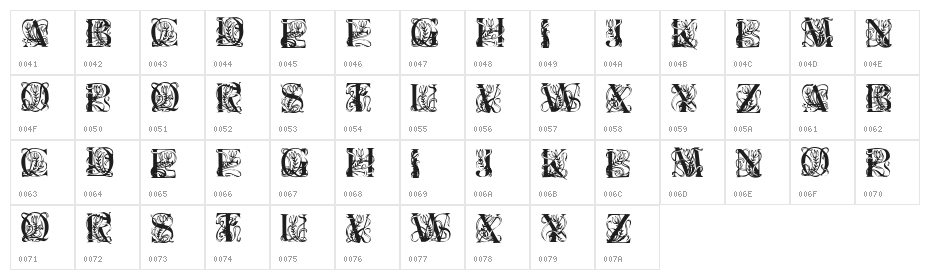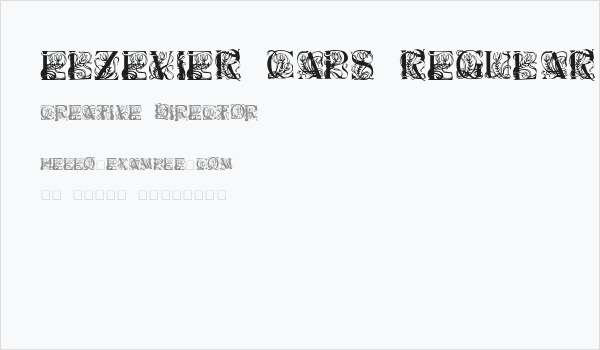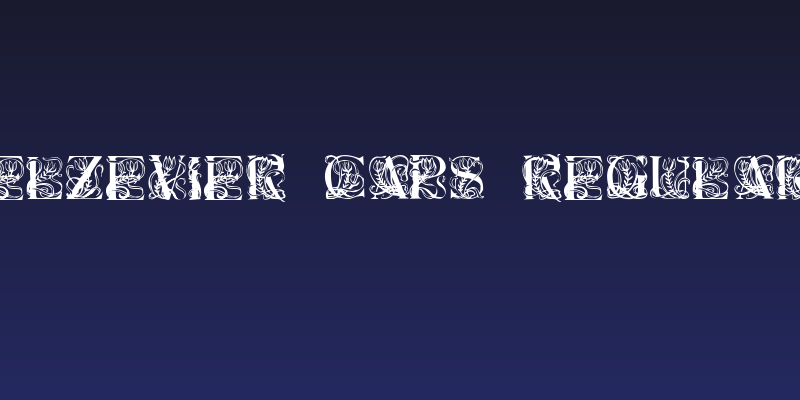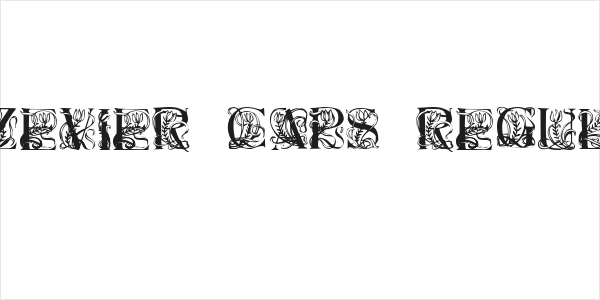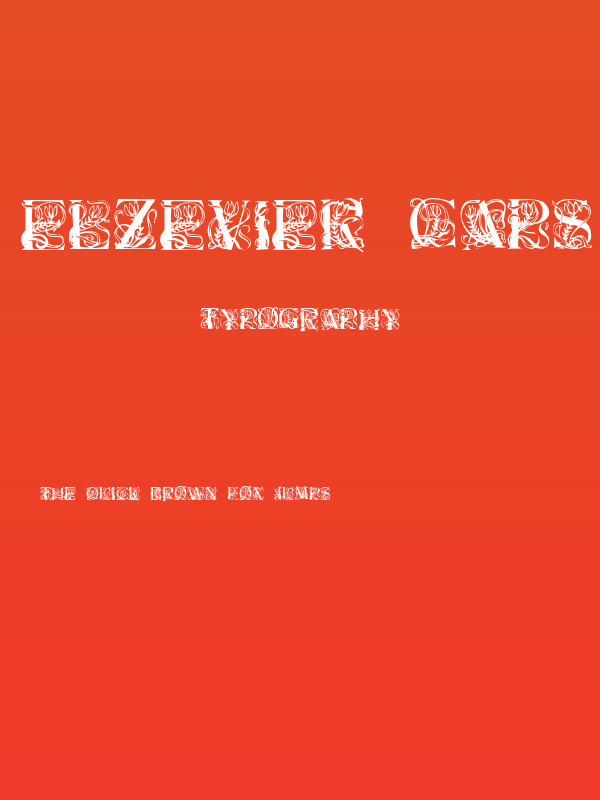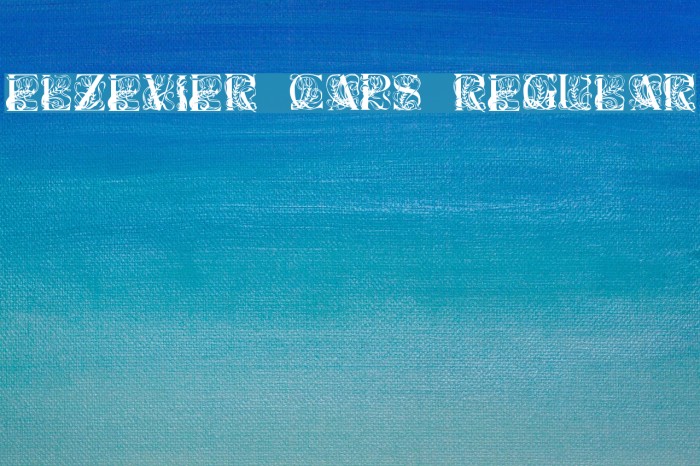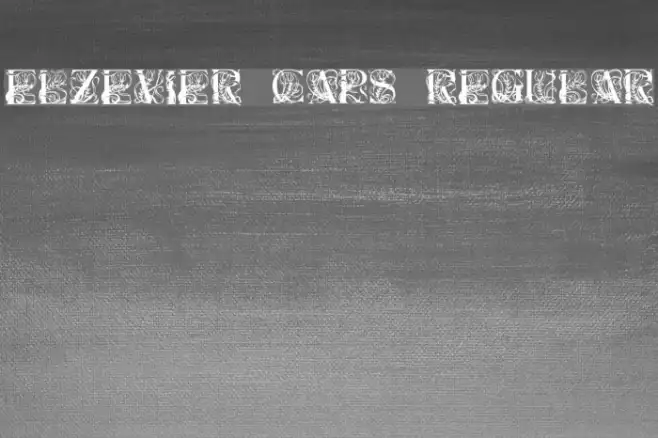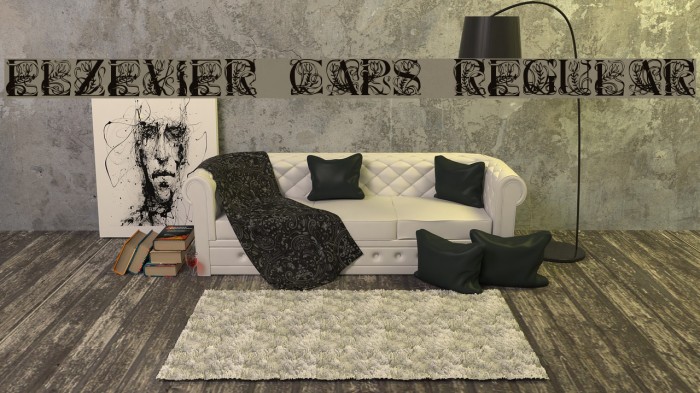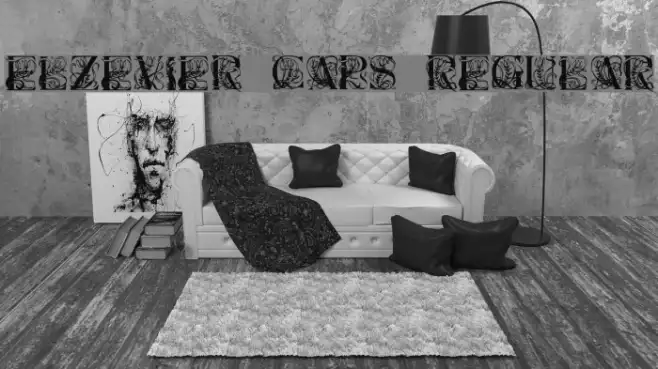
Elzevier Caps Regular Font
Elzevier Caps Regular Description
This font is a highly decorative and ornate typeface, characterized by intricate flourishes and embellishments that give it a distinctly elegant and classical appearance. The uppercase letters are adorned with elaborate swirls and curls, creating a sense of grandeur and sophistication. The overall design is reminiscent of historical or vintage styles, making it suitable for projects that require a touch of old-world charm. The font's detailed and complex nature suggests it is best used sparingly to maintain readability and impact.
| Proposed Projects | Ideal for wedding invitations, historical themed projects, luxury branding, and decorative headings. |